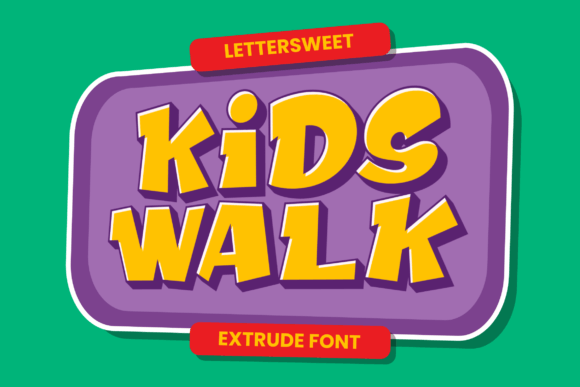
Introducing Kids Walk Font - the playful typeface that's perfect for adding a fun and colorful touch to your designs! Created by Lettersweet, this display font is inspired by the joyful world of children and features a unique extrude effect that will make your designs stand out.
With its kid-friendly design, Kids Walk is ideal for a wide range of applications, from quotes and t-shirt designs to flyers, YouTube channels, labels, logos, and more. Whether you're looking to create a fun and engaging brand identity or simply add a playful touch to your designs, Kids Walk has got you covered.
One of the great things about Kids Walk is its versatility. Thanks to its unique characteristics and eye-catching design, this font is perfect for a wide range of projects, whether you're working on a logo for a children's brand or a flyer for a kids' party. With its bold and playful look, Kids Walk is sure to capture the attention of your target audience and make your designs stand out from the crowd.
In addition to its playful design, Kids Walk is also a great choice for anyone looking to create a font style for logos. Its unique extrude effect and playful design make it a great choice for brands looking to create a memorable and engaging logo that will resonate with their target audience.
Overall, if you're looking for a fun and engaging font that's perfect for a wide range of applications, Kids Walk is an excellent choice. With its unique design and versatile style, this font is sure to help you create designs that capture the attention of your target audience and leave a lasting impression.